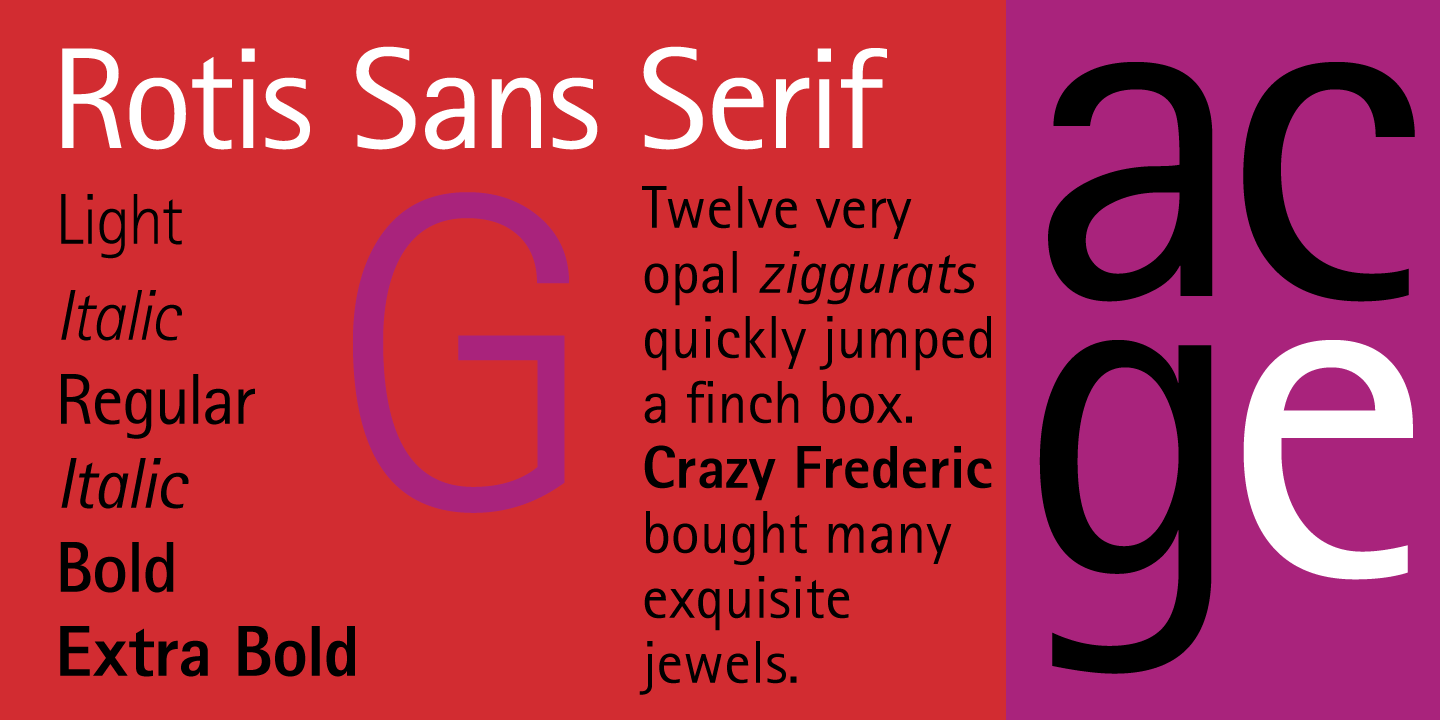
Rotis Sans Serif Font is perfect for corporate communications, business presentations, professional documentation, financial reports, healthcare branding, educational materials, government publications, institutional signage, legal documents, and any projects that require dependable, versatile typography with neutral professionalism and universal appeal.
What makes Rotis Sans Serif Font exciting is its exceptional versatility as part of the harmonious Rotis superfamily that seamlessly integrates with serif and semi-serif variants for comprehensive typographic systems. This reliable typeface features balanced proportions with subtle humanist characteristics that ensure excellent readability across all applications while maintaining professional neutrality. The font's systematic design makes it perfect for organizations seeking to establish consistent, trustworthy communication that works effectively across diverse media and international contexts.
Rotis Sans Serif Font family includes systematic weight variations featuring light, regular, medium, bold, and black options. The font family also offers italic versions with complementary characteristics, along with condensed variants for space-efficient applications. Special features include extensive multilingual support, comprehensive character sets, and optimized spacing that ensures reliable performance in complex document systems and professional publishing environments.